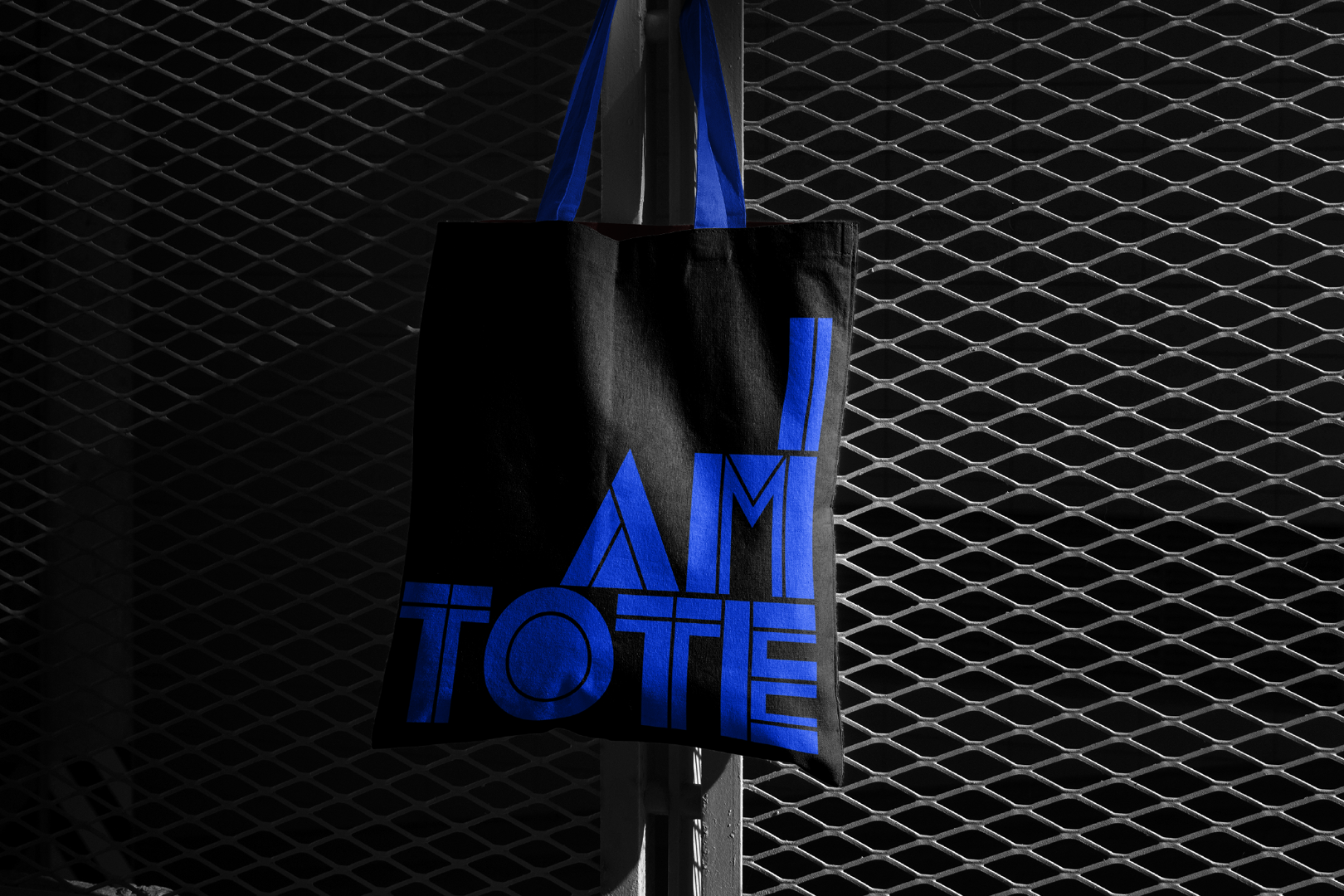
Dekal is a revival typeface of Blackline, designed initially by Wolf Magin in 1969. The contrast between thick and thin parallel lines creates a unique visual identity familiar in the dry transfer era of the late 1960s and early 1970s. In this digital interpretation, lines and spacing are more expansive to help construct lowercase characters and improve screen rendering. Without question, it is great for apparel, books, and posters.
The font includes over 500 characters per style with three interchangeable line styles. OpenType features consist of lining and tabular figures, fractions, standard ligatures, and thirteen stylistic sets. Language support covers Western, Southern, and Central Europe.